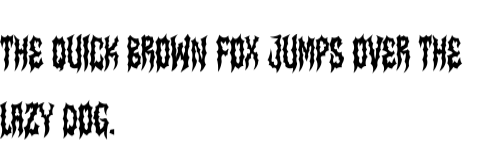
Introducing Breaks Font: Unleash the Fury of Black Metal Typography
In the realm of typography, few fonts evoke the same level of intensity and rebellion as Breaks Font. This razor-edged black metal font is designed to slice through the silence with brutal intensity, making it the perfect choice for band logos, album covers, horror visuals, and underground merchandise that demands raw impact.
Breaks – A Sharp and Savage Black Metal Font
Breaks is more than just a font – it’s a weapon in typographic form. Its sharp, jagged letterforms echo the chaos of extreme metal genres, making it an ideal choice for those who thrive on heavy noise and visual rebellion. The aggressive spiked forms and occult-inspired cuts of Breaks Font are sure to leave a lasting impression on your audience.
Design Features of Breaks Font
- Sharp and jagged letterforms: Breaks Font features sharp, jagged letterforms that echo the chaos of extreme metal genres.
- Aggressive spiked forms: The font’s aggressive spiked forms add to its intense and rebellious aesthetic.
- Occult-inspired cuts: The occult-inspired cuts in Breaks Font give it a unique and edgy look.
- High-impact typography: Breaks Font is designed to make a statement, making it perfect for high-impact typography.
Usage Ideas for Breaks Font
Breaks Font is ideal for a variety of projects that require a bold and intense aesthetic. Here are some usage ideas to get you started:
- Band logos and merchandise: Breaks Font is perfect for band logos, album covers, and merchandise for metal bands.
- Horror visuals: The font’s dark and edgy aesthetic makes it ideal for horror-themed projects.
- Death metal visuals: Breaks Font is a natural fit for death metal visuals, including album covers and merchandise.
- Dark fantasy themes: The font’s occult-inspired cuts and aggressive spiked forms make it perfect for dark fantasy themes.
- Underground merchandise: Breaks Font is ideal for underground merchandise, including t-shirts, posters, and stickers.
The Typographic Impact of Breaks Font
Breaks Font is designed to make a statement. Its sharp, jagged letterforms and aggressive spiked forms are sure to grab attention and leave a lasting impression on your audience. The font’s occult-inspired cuts add to its dark and edgy aesthetic, making it perfect for projects that require a bold and intense look.
In the world of typography, Breaks Font is a game-changer. It’s a font that’s not afraid to push boundaries and challenge the status quo. Whether you’re a designer, artist, or musician, Breaks Font is the perfect choice for those who thrive on creativity and rebellion.
In conclusion, Breaks Font is a razor-edged black metal font that’s designed to make a statement. Its sharp, jagged letterforms, aggressive spiked forms, and occult-inspired cuts make it perfect for a variety of projects that require a bold and intense aesthetic. Whether you’re a designer, artist, or musician, Breaks Font is the perfect choice for those who thrive on creativity and rebellion.